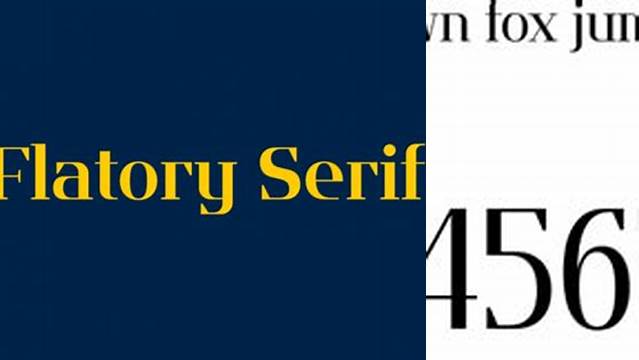
Flatory Serif 700 Font: Free Download & Guide
Hey everyone, are you looking for a stunning and versatile font to spice up your designs? Well, look no further! Today, we're diving deep into the world of Flatory Serif 700, a fantastic font that's available for free download. We'll cover everything you need to know, from where to grab it to how to use it effectively in your projects. Get ready to unleash your creativity! Flatory Serif 700 font free download is one of the most sought after fonts on the internet. When you want to find a font to use in your project, there are various kinds of fonts to choose from. You have to consider whether the font will work well in your project and how the font will show in the final result. The Flatory Serif 700 font has become a popular choice among designers and creatives alike. The font has a wide range of applications from graphic design to web design. The font is easy to use and offers a clean and modern aesthetic. If you want to enhance your designs and want to make them professional, then this font is the perfect choice for you. The Flatory Serif 700 is also great because of its readability, making it a good choice for body text and headlines. This font offers a unique blend of elegance and readability. Whether you're working on a logo, website, or print material, this font will help you achieve a professional and eye-catching look. This guide will explore the characteristics of the font and show you how to use it in your creative projects.
What is Flatory Serif 700 Font? Unveiling its Characteristics
So, what exactly makes Flatory Serif 700 so special? This font is a modern serif typeface known for its clean lines, balanced proportions, and a touch of contemporary flair. The Flatory Serif 700 font has a striking appearance, making it ideal for both display and body text. The font offers a range of weights, allowing for great flexibility in design. The font is designed with careful attention to detail, which is why the characters are clear and easy to read. The font has a distinct personality that makes it suitable for various applications. The font includes a variety of characters, including uppercase and lowercase letters, numbers, and punctuation marks. This gives you the tools to create a polished and visually appealing design. The font is perfect for any project that requires a touch of sophistication and readability. The font is the perfect choice for creating a unique and memorable brand identity. With its elegance and versatility, Flatory Serif 700 will make your designs stand out from the crowd. The font is suitable for a variety of projects, from branding to website design and print materials. The font is designed to be legible, which makes it a great option for long-form content.
This is a versatile font that can enhance any project, whether it’s for personal or commercial use. Whether you're designing a minimalist website or crafting a sophisticated print advertisement, this font will make your project stand out. This font is designed to offer both aesthetics and functionality. The font is a great option for those seeking a balance between style and readability. The font is designed with readability in mind, so it's ideal for both headlines and body text. With its balanced design and refined details, this font will provide a professional and elegant appearance.
Using Flatory Serif 700 in Your Design Projects
Okay, you've got the font installed, but how do you actually use it? Flatory Serif 700 is incredibly versatile, making it perfect for a wide range of design projects. Here are some ideas to get you started:
- Headlines and Titles: With its bold appearance and clear readability, Flatory Serif 700 is an excellent choice for headlines and titles. Its contemporary flair makes your titles stand out and capture attention.
- Logos and Branding: This font has a clean and modern aesthetic, making it ideal for creating logos and branding materials. Its elegant lines can help convey a sense of professionalism and sophistication.
- Website Design: Use Flatory Serif 700 for headings, subheadings, and even body text on your website. Just make sure to consider the overall design and ensure the font complements the other elements.
Conclusion: Unleash Your Creativity with Flatory Serif 700
So, there you have it, guys! Flatory Serif 700 is a fantastic font that offers a blend of elegance, readability, and versatility. With its clean lines and contemporary aesthetic, it's perfect for a wide range of design projects. The font is suitable for both personal and commercial use, making it a valuable asset for designers of all levels. The font will enhance your designs. Remember to download the font from a trusted source, install it correctly, and experiment with different design techniques. The font will make your designs stand out from the crowd. The font is designed to be versatile and easy to use. The font is also perfect for both headlines and body text. With its clean and modern look, Flatory Serif 700 is sure to become a staple in your font library. The font will allow you to create a unique and memorable brand identity. So go ahead, download Flatory Serif 700 and start creating! We hope this guide has been helpful. Happy designing!